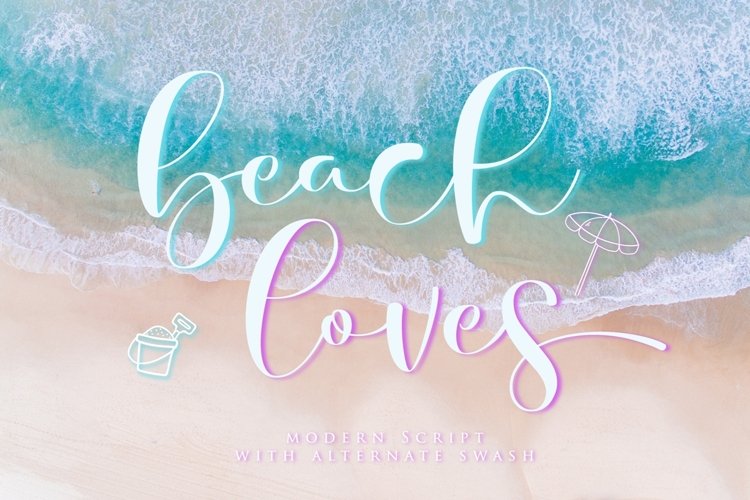
beach loves is a beautiful and flowing handwritten font with love.
It looks beautiful on a variety of designs requiring a personalized style, such as wedding invitations, thank you cards, weddings, greeting cards, logos and so on.
beach loves a new fresh & modern script with a handmade calligraphy style, decorative characters and a dancing baseline! So beautiful on invitation like greeting cards, branding materials, business cards, quotes, posters, and more!!
More than 419 of glyphs
23 ligatures
Alternates
Stylistic sets from ss01 to ss02
Multilingual Language
Swash Line